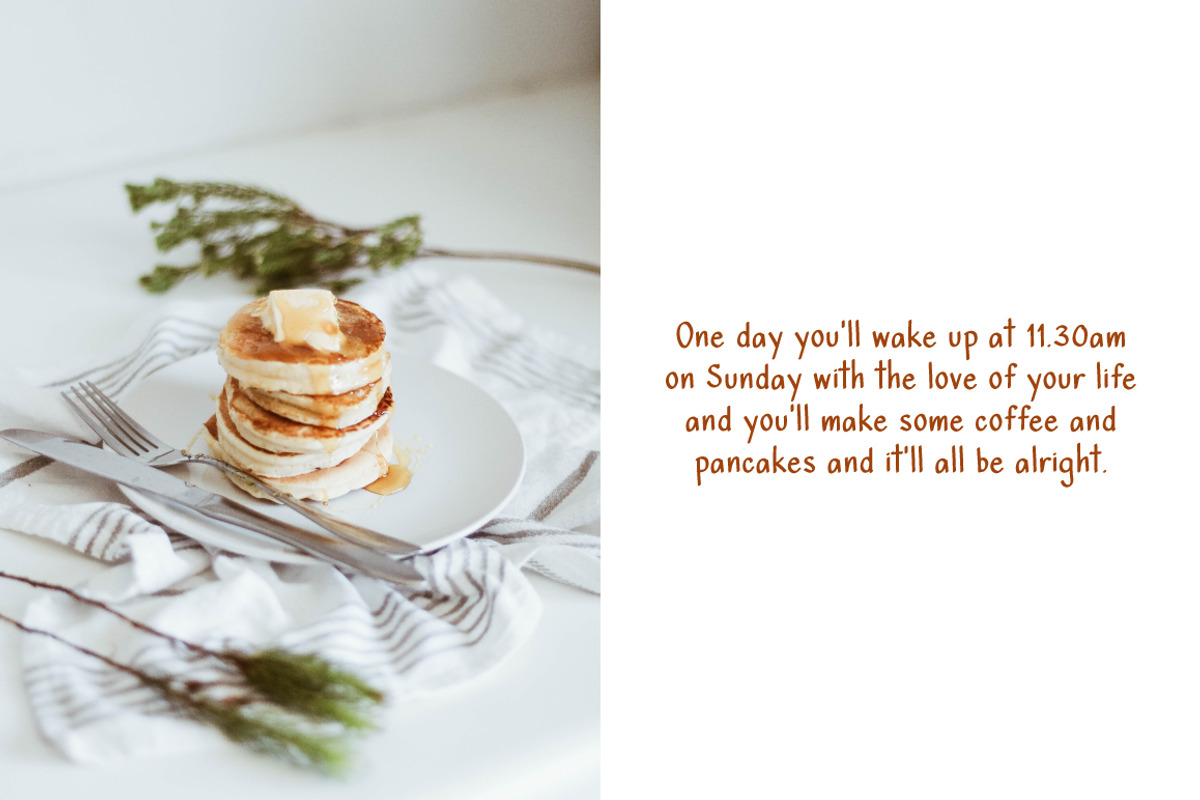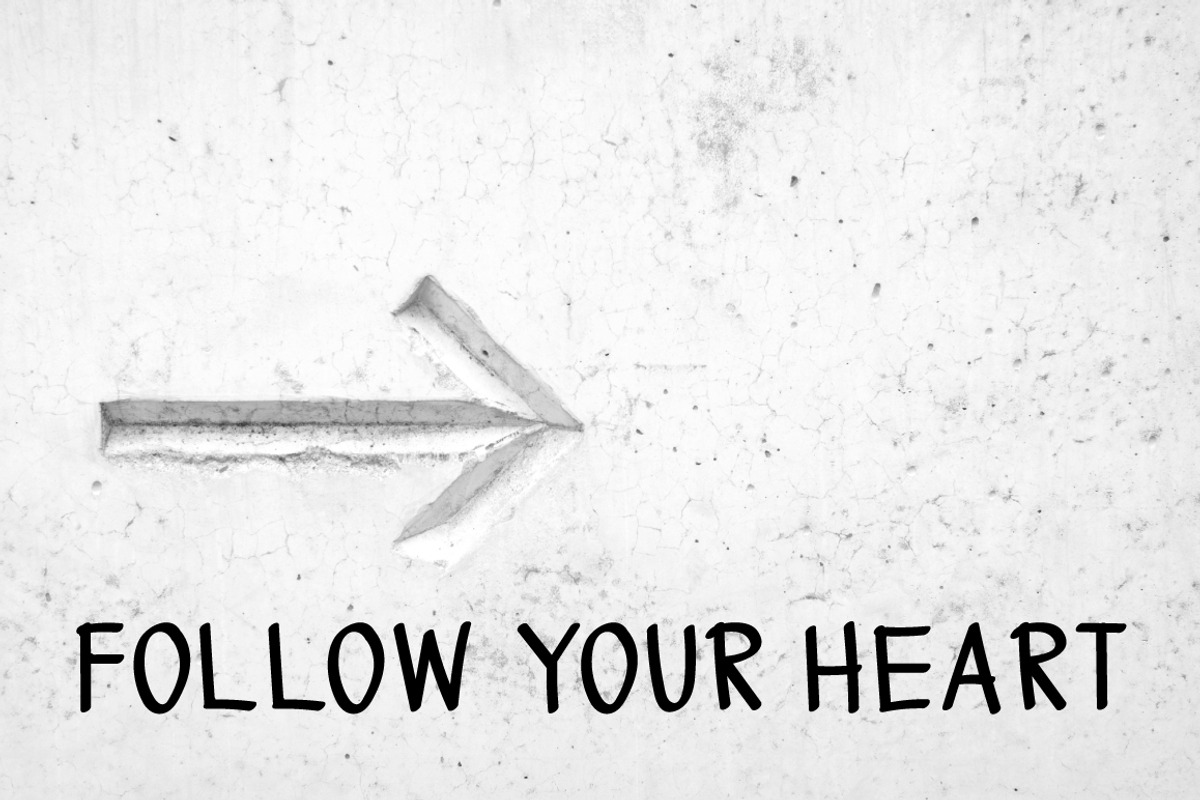
Maple Marker sans serif
Maple Marker is a handwriting sans serif typeface designed to give off a orderly and tidy vibe. Maple Marker is easy to read. It can be use to create a handcraft logo design for your branding projects, corporate identity, labels, stickers, packaging design, apparel design, etc.
- Standard English(A-Z, a-z)
- Western European languages supported, numbers(0-9), punctuations